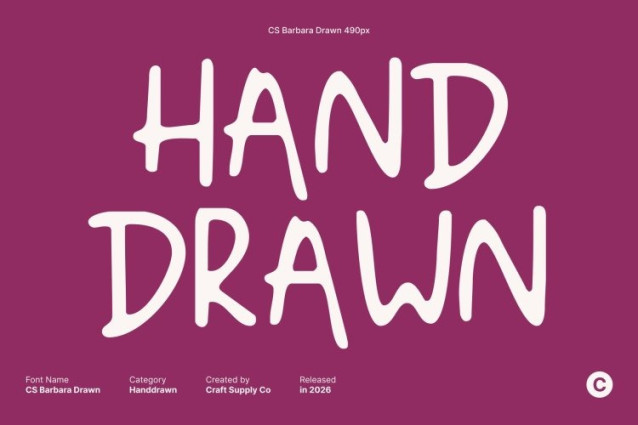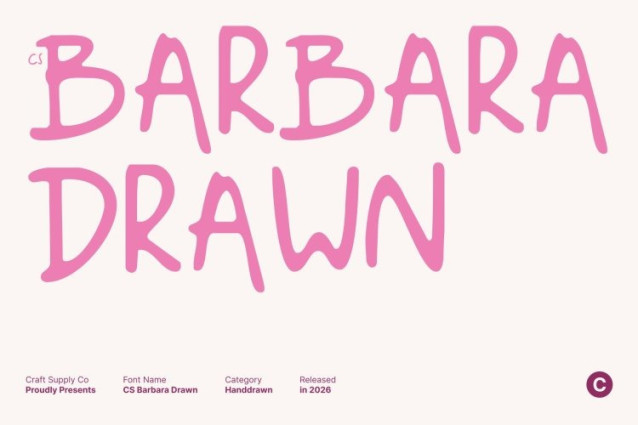
CS Barbara Drawn Font
CS Barbara Drawn Font This is a fun handwritten font that radiates energy, joy, and positivity. Its rounded strokes and flowing letterforms create a lively, approachable appearance that instantly feels friendly. Enhanced with a drawn texture, the font carries a natural, handmade charm that adds warmth and character to any design.
Friendly Shapes for Cute and Casual Designs
The soft, rounded shapes give this font a cute and cheerful personality. Its smooth curves and playful rhythm make it ideal for lighthearted visuals, youth-oriented branding, children’s projects, and designs that aim to feel casual, warm, and expressive.
Perfect for Greeting Cards and Creative Branding
This font shines in greeting cards, invitations, and celebratory designs where a joyful tone is essential. In branding, it helps communicate openness and friendliness, making it a great choice for cafes, kids’ products, creative businesses, and lifestyle brands that want to connect emotionally with their audience.
Versatile for Casual and Everyday Projects
Despite its playful nature, this font is highly versatile. It works beautifully across posters, packaging, social media, and digital content, delivering a fun, modern, and approachable aesthetic that feels fresh and full of life in every application.